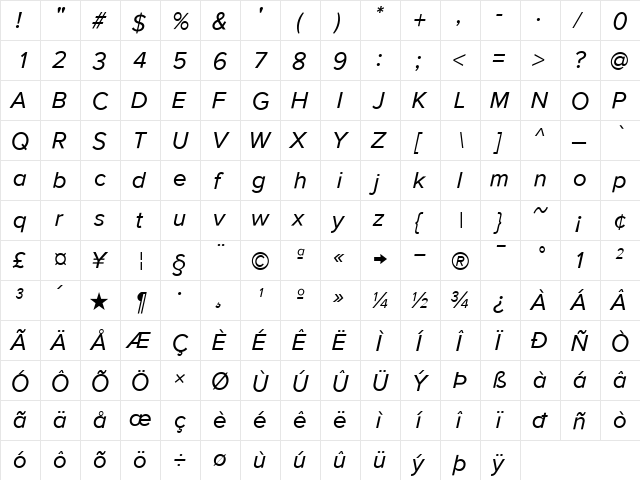
ProximaSansOblique Regular
Design Context for ProximaSansOblique Typeface
ProximaSansOblique is a composed and adaptable typeface that performs quietly and consistently across a wide range of design contexts. Its italic angle brings a sense of urgency and motion to the letterforms.
Pro Tip: Try ProximaSansOblique for annotation and caption copy alongside an upright companion — the contrast in angle creates a dynamic but ordered typographic system.